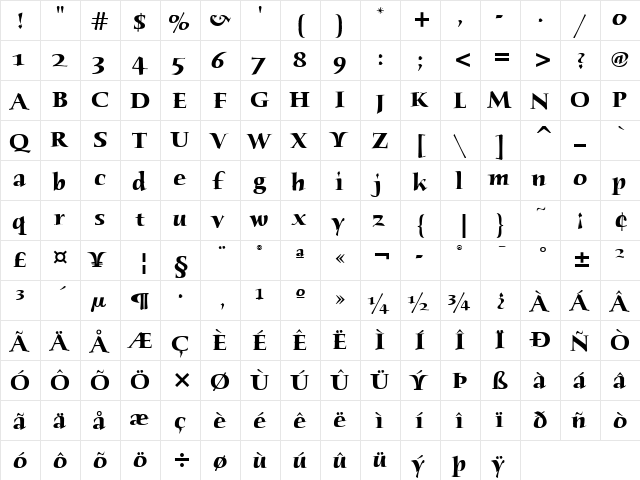
Humana Serif ITC Bold
Design Context for Humana Serif ITC Typeface
Humana Serif ITC brings classic typographic sensibility to the table — its serifs and measured letterforms reflect centuries of print heritage. Its bold stroke weight gives it real presence on the page.
Pro Tip: Use Humana Serif ITC for editorial body copy and considered headline work. Pair with a neutral sans for UI elements or captions to create a classic hierarchy.